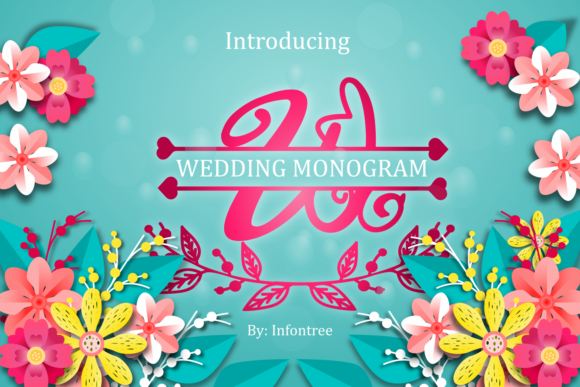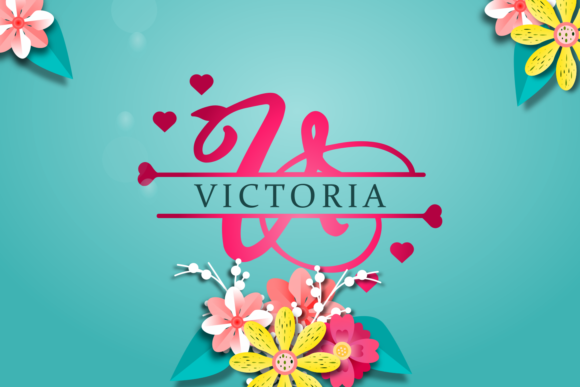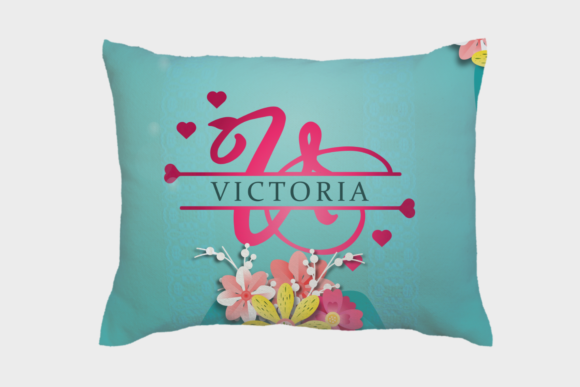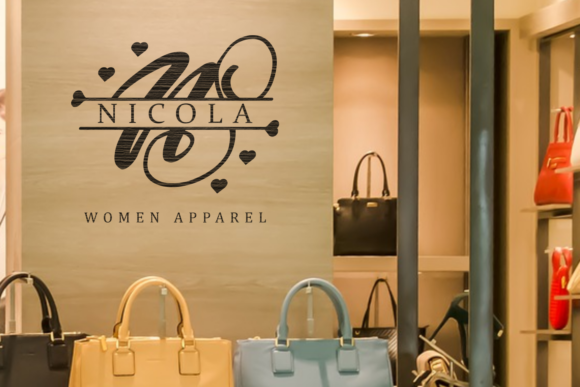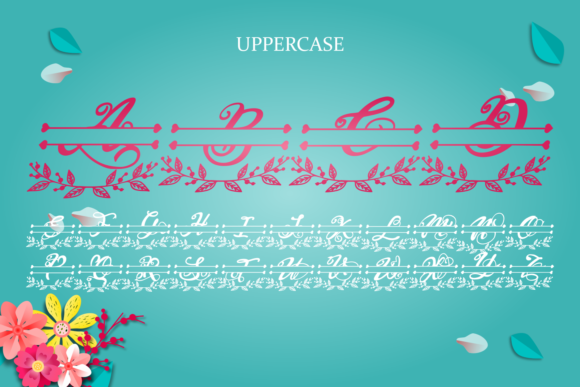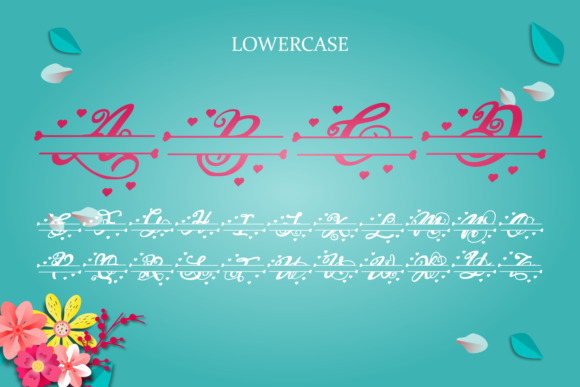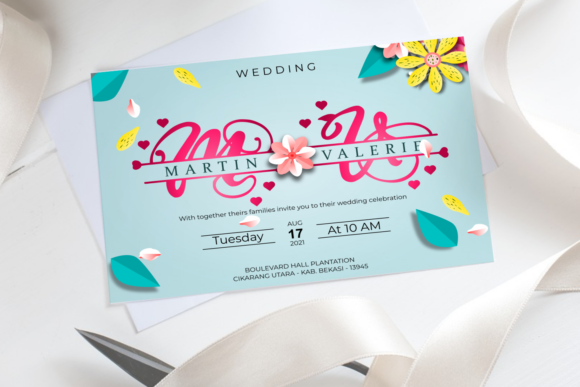
Wedding Monogram Font
About Wedding Monogram Font
Wedding Monogram: Embrace the Elegance of Simplicity with a Stunning Handwritten Font
Introducing Wedding Monogram, a font that effortlessly simplifies elegance into one outstanding handwritten style. Its unique and refined appearance makes it a true standout choice for a wide array of designs. Whether you’re crafting enchanting wedding invitations, designing beautiful stationary art, creating eye-catching social media posts, or any other project that requires a touch of sophistication—Wedding Monogram is the perfect companion. Fall in love with its versatility and let it add a touch of beauty and charm to your creations, elevating them to new levels of elegance.
The allure of Wedding Monogram lies in its ability to embody elegance in a simple and understated manner. Each letter is meticulously crafted to exude a sense of refinement and grace, instantly captivating the hearts of those who see it.
Designing with Wedding Monogram is a delightful experience. Its timeless strokes and delicate style bring a touch of authenticity to your creations, making them truly special and captivating.
Fall in love with the versatility of Wedding Monogram. Whether you’re designing for romantic celebrations or creating stunning visual content, this font effortlessly adapts to suit your creative vision.
Unleash your imagination with Wedding Monogram. Its elegant simplicity allows you to create designs that showcase beauty and charm, making a lasting impression on your audience.
Gorgeous designs come to life with Wedding Monogram’s stunning and versatile style. Whether you’re crafting the perfect wedding invitation or designing captivating social media posts, this font adds a touch of sophistication that leaves a lasting impact.
In conclusion, Wedding Monogram is more than just a font; it’s an elegant masterpiece that simplifies elegance in a truly outstanding way. Embrace its refined charm, and let it become the heart of your most cherished projects. Whether you’re celebrating love, curating beautiful stationary art, or engaging in any creative endeavor, Wedding Monogram will be your trusted companion, adding a touch of grace and beauty. Allow this font to unlock the full potential of your creativity, and watch as your designs come alive with the elegant and versatile spirit of Wedding Monogram. Embrace the simplicity of elegance, and let it guide you to create truly spectacular designs that capture the essence of beauty and charm.